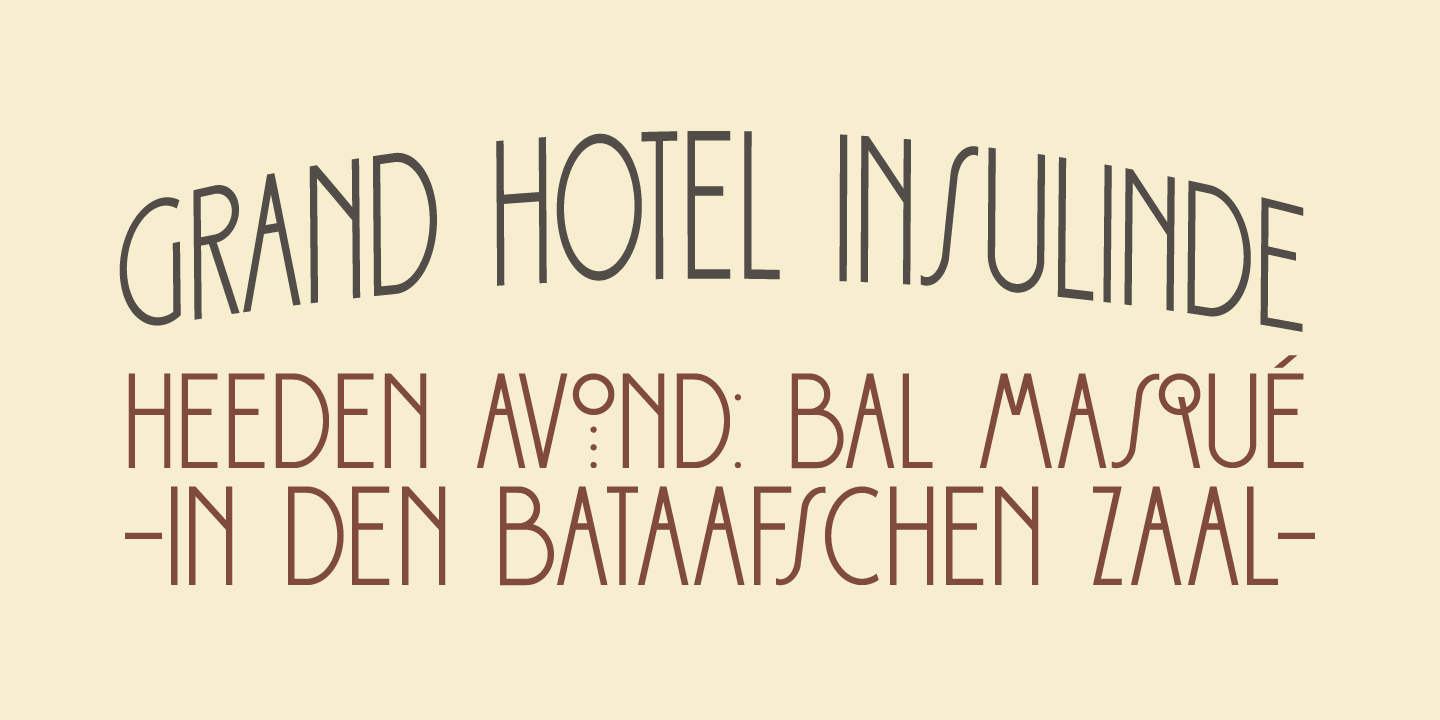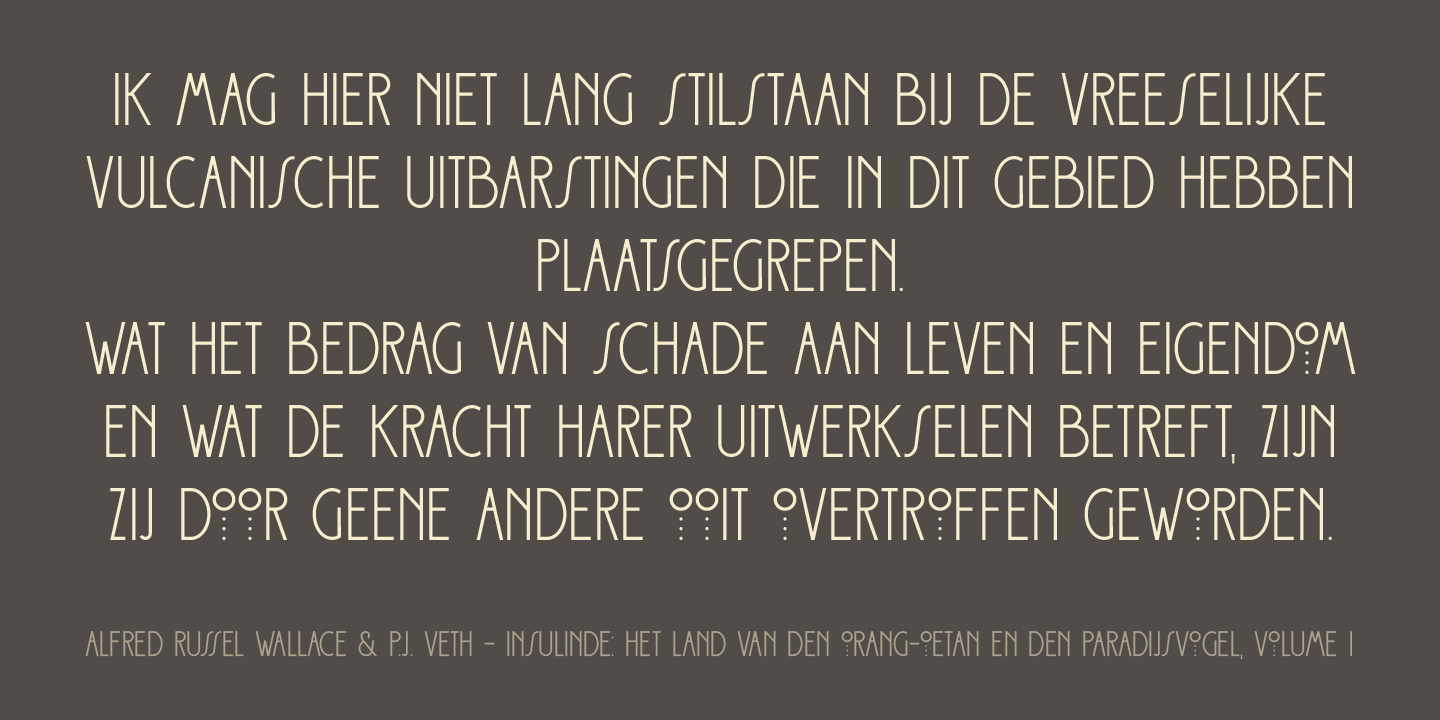
Palembang
Font Family by Hanoded
Palembang is the second largest city on the Indonesian island of Sumatra. It is also one of the oldest cities in Indonesie and used to be the capital of the powerful Buddhist Kingdom of Srivijaya. After finishing Semarang and Semarang Kolonial fonts, I sort of stayed in the Indonesian mood and named this font Palembang. It is a narrow, tall, all caps Art Deco typeface and would be most suited for headlines, cards, headers and luxury packaging. Palembang comes with royal language support.